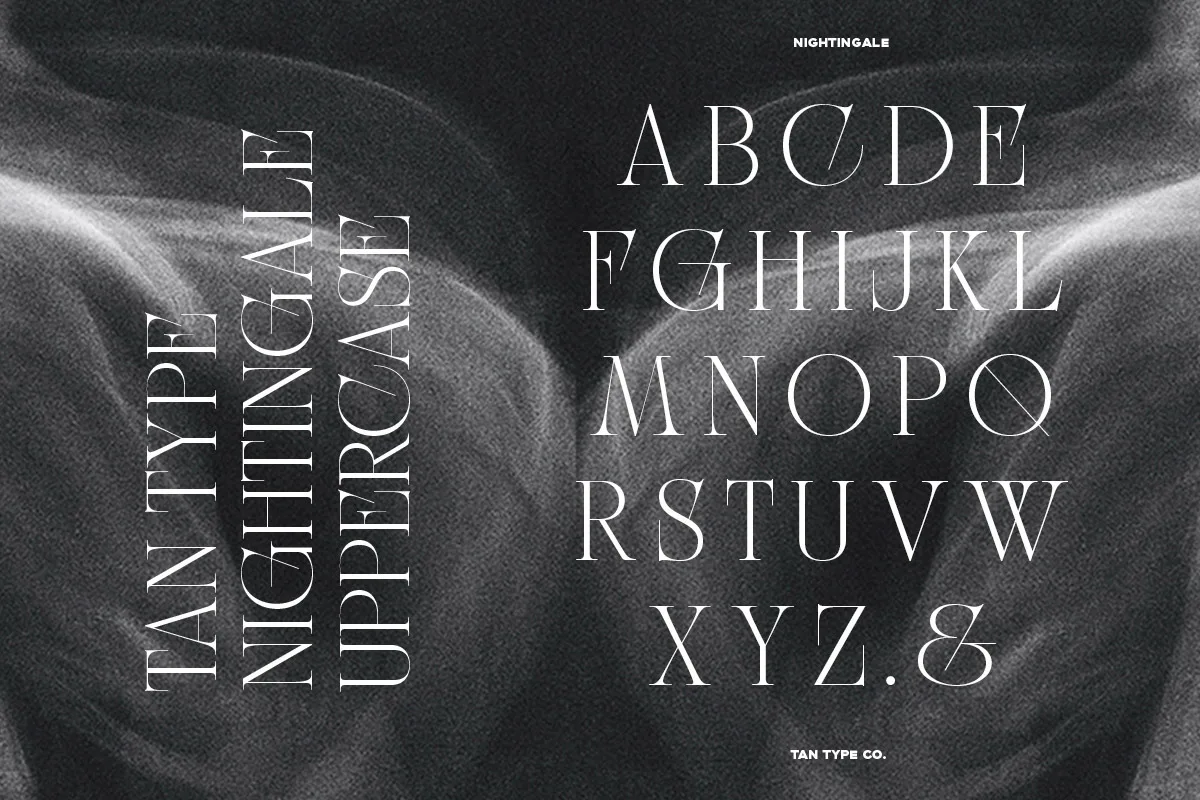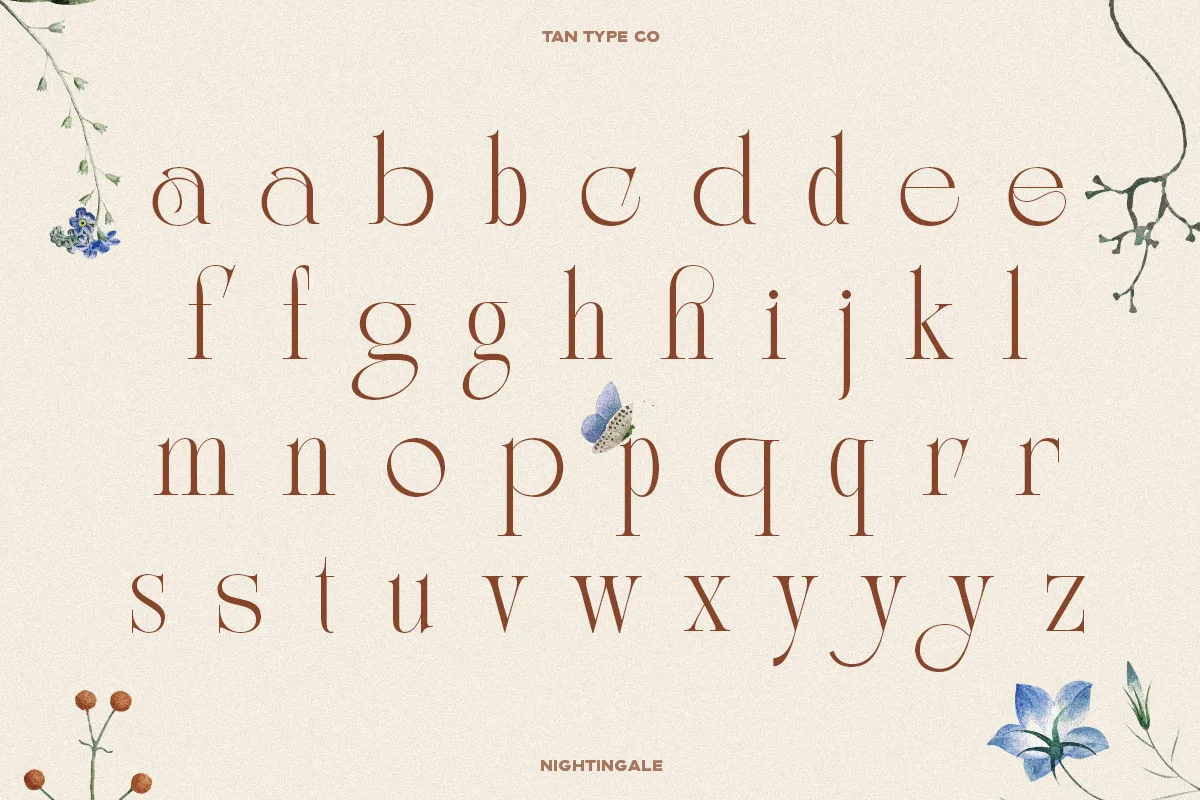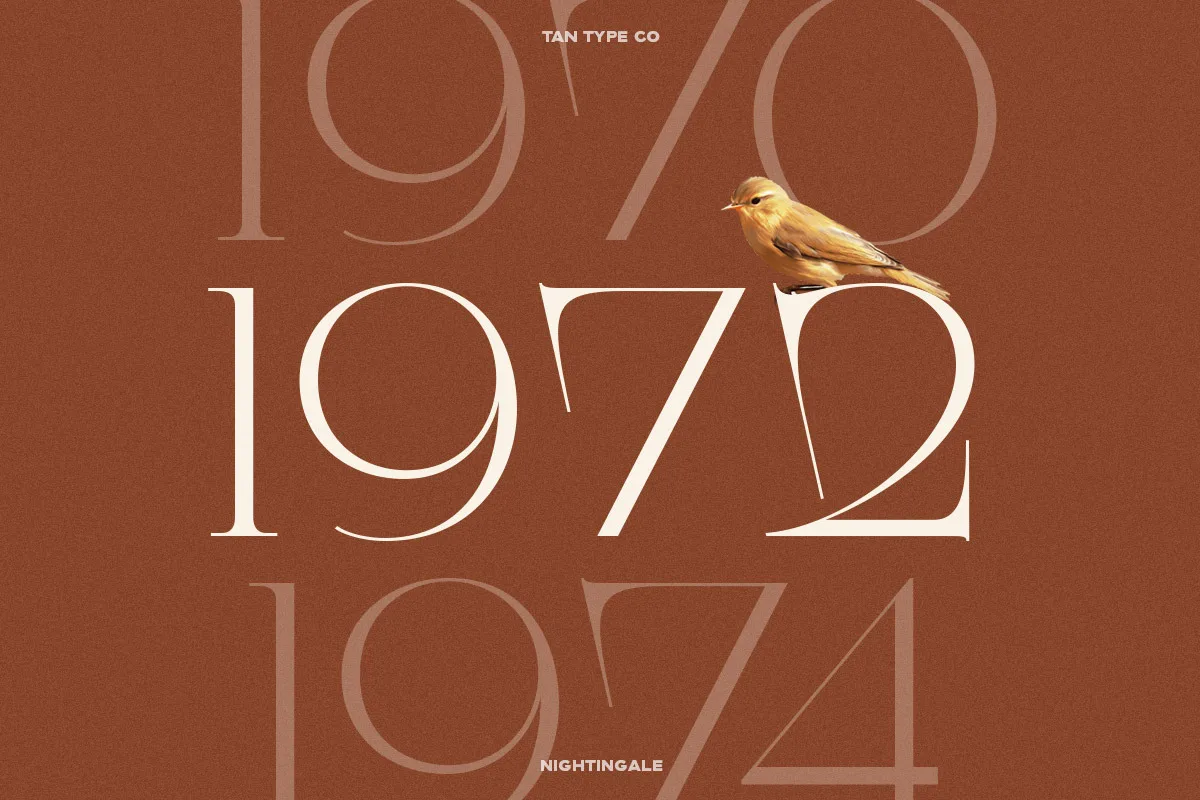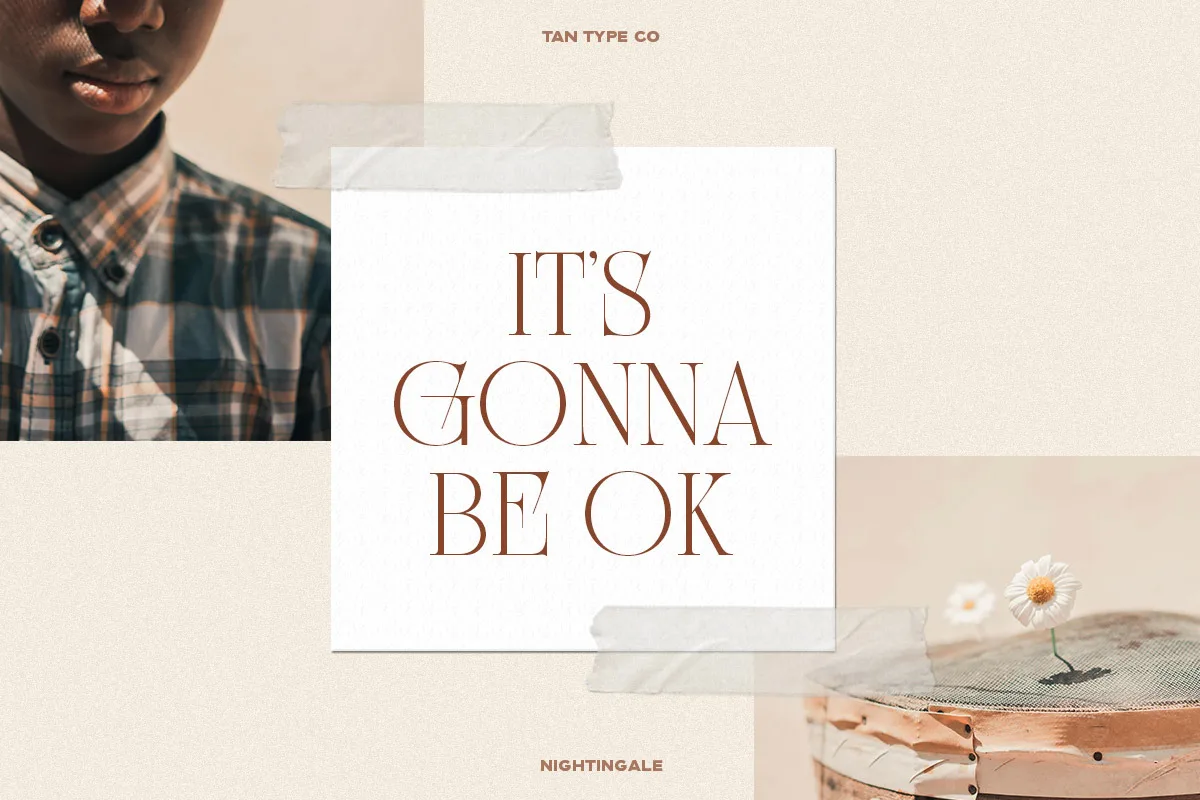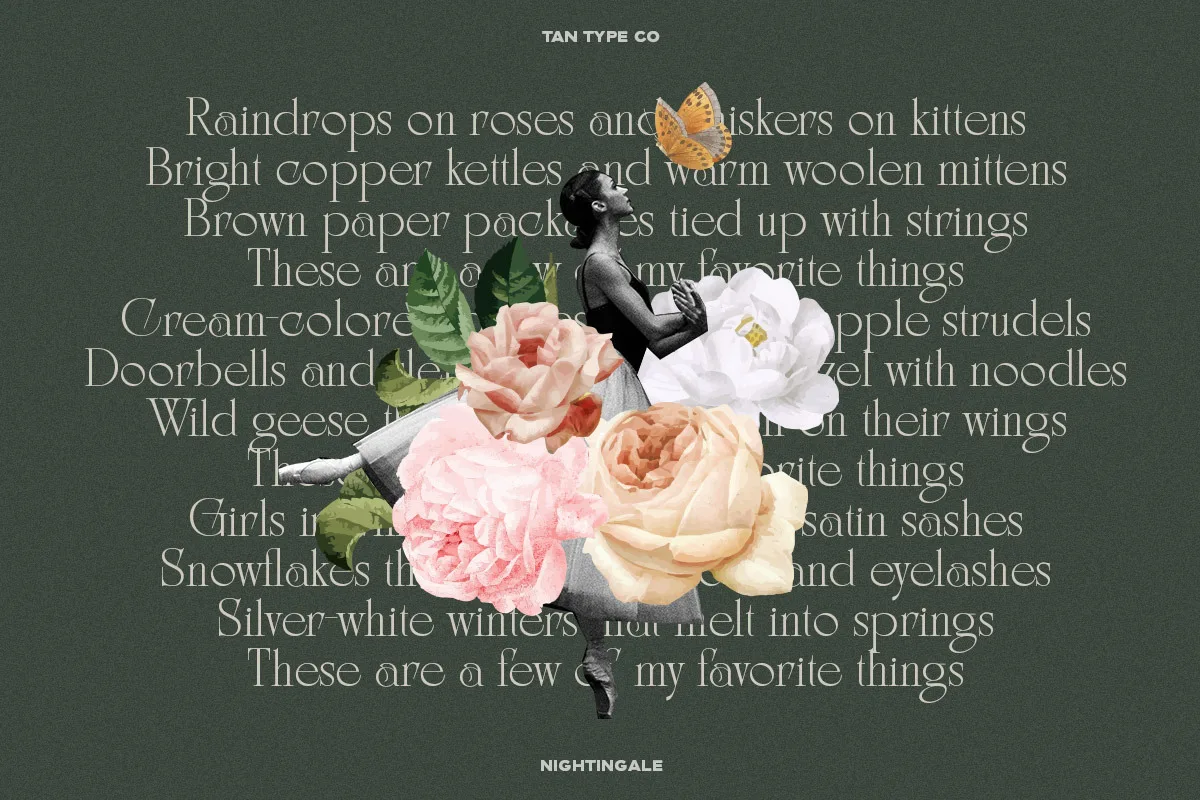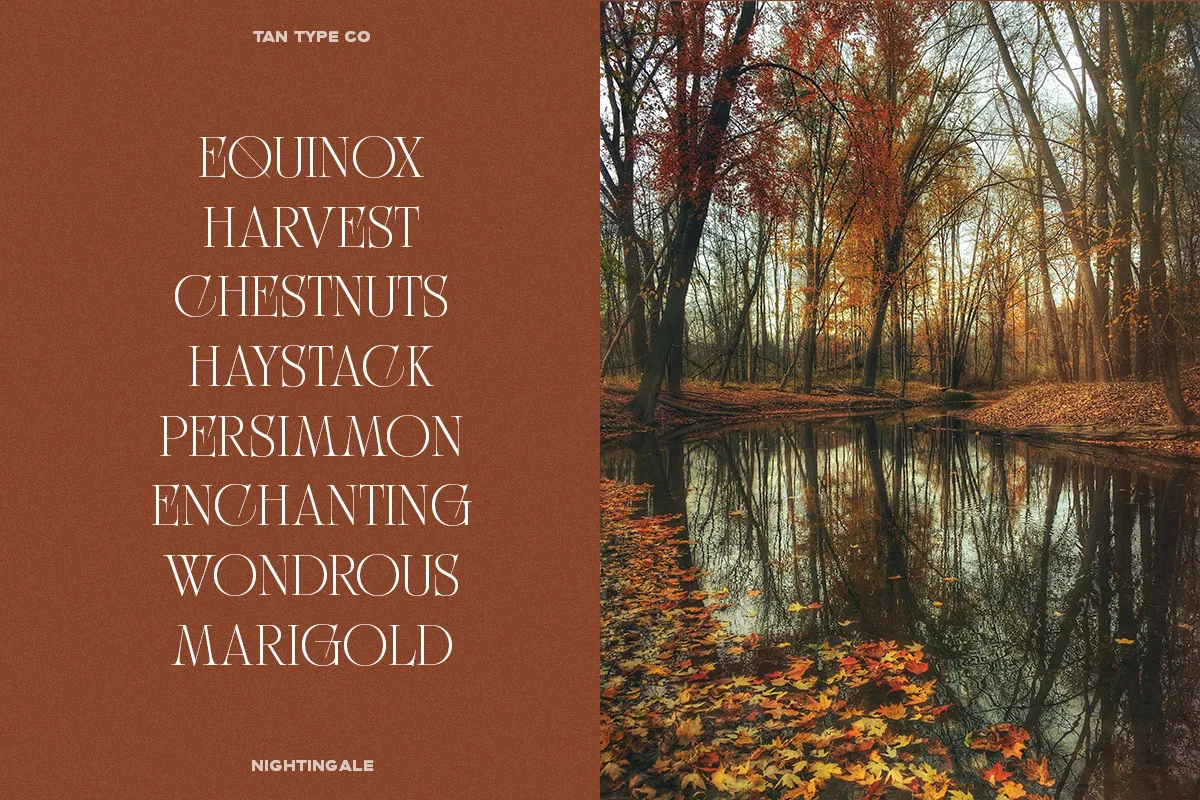
Tan Nightingale Font
Tan Nightingale Font is an art deco inspired with dramatically elongated serif. With its clean and modern feel, Nightingale will definitely adds elegance when used.
Tan Nightingale font preview — sample text
Tan Nightingale font alphabet, numbers and glyphs
Tan Nightingale font style preview
Tan Nightingale font used in a design mockup
Tan Nightingale font detail preview
Tan Nightingale font additional style preview